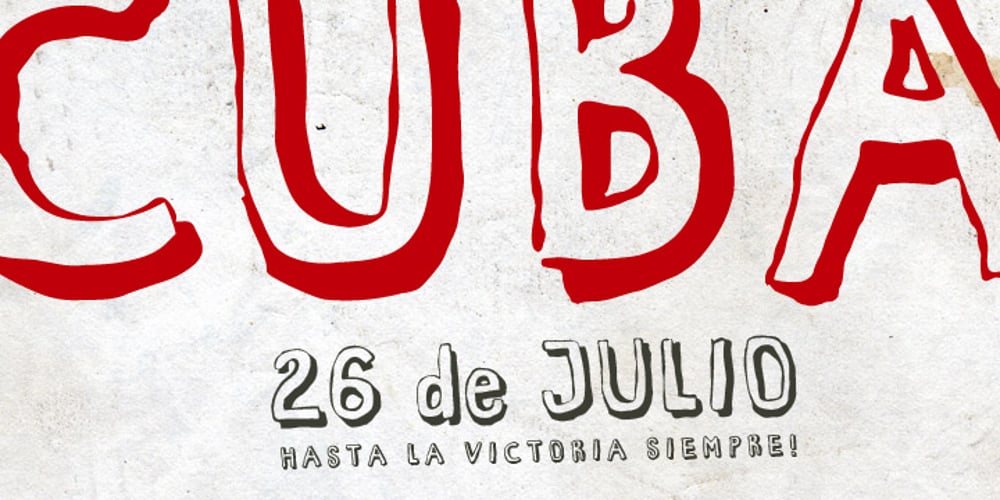
Habana Vieja Font Family was designed by Ursula Hitz and published by Letters&Numbers. Habana Vieja contains 1 styles and family package options. Habana Vieja is inspired by hand-painted signage in Havana’s old town. Letters are defined by their drop-shadow and worn outlines; suggestive of a sunny environment. This playful sans-serif, bold font, will work well used for headings and short paragraphs especially for posters or signage. Habana Vieja is extended, containing West European diacritics, making it suitable for multilingual environments and publications.